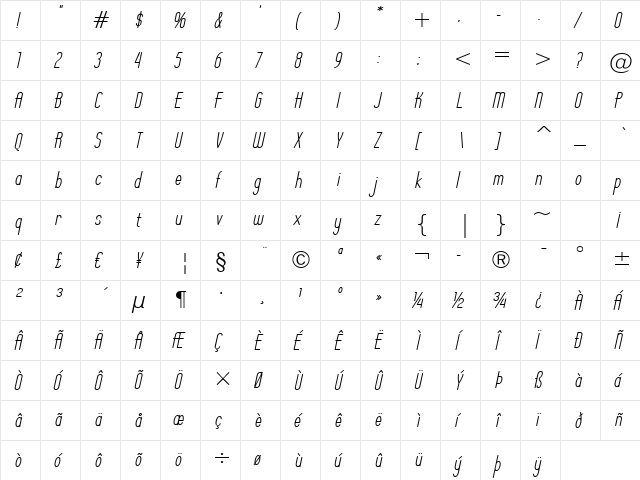
Operator Nine BTN Oblique
Design Context for Operator Nine BTN Typeface
Operator Nine BTN is a composed and adaptable typeface that performs quietly and consistently across a wide range of design contexts. The slanted form adds forward momentum and visual energy.
Pro Tip: Try Operator Nine BTN for annotation and caption copy alongside an upright companion — the contrast in angle creates a dynamic but ordered typographic system.